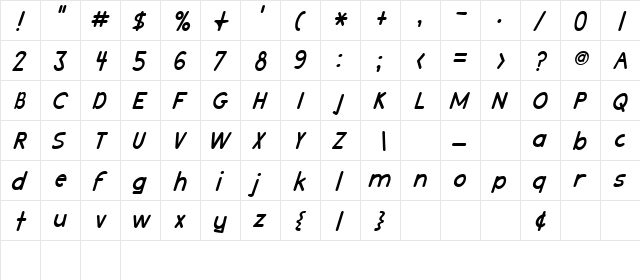
Hardy Oblique
Design Context for Hardy Typeface
Hardy offers clean, dependable letterforms without strong stylistic allegiance, making it a practical choice for designers who need flexibility. The dynamic lean of this cut emphasises speed and emphasis in any layout.
Pro Tip: Try Hardy for annotation and caption copy alongside an upright companion — the contrast in angle creates a dynamic but ordered typographic system.